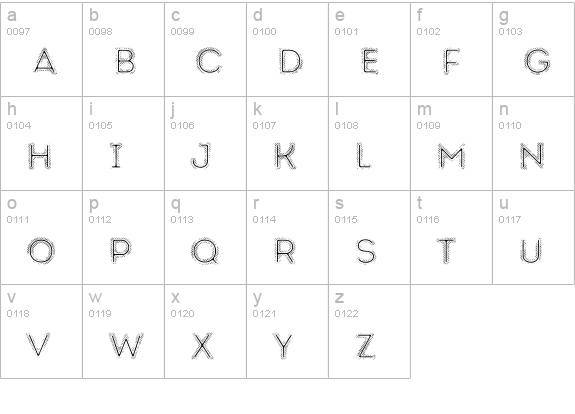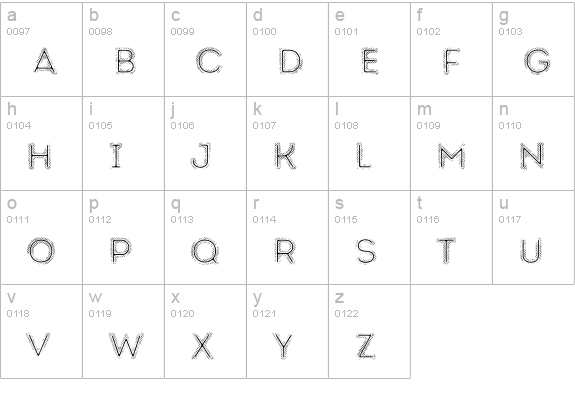
Intro Rust L Fill 2 Line Font Details
Intro Rust L Fill 2 Line font is a striking display typeface that exudes a sense of boldness and creativity. With its unique design featuring filled letters with two lines, this font is perfect for making a statement in various design projects. Whether you are working on branding, logos, posters, or editorial designs, Intro Rust L Fill 2 Line font will add a touch of modernity and style to your work. The best part is that Intro Rust L Fill 2 Line font is available for free download at FontsMarket.com. This means you can easily access this eye-catching font and incorporate it into your projects without any hassle. Don't miss out on the opportunity to enhance your designs with the distinctive charm of Intro Rust L Fill 2 Line font. Download it now and let your creativity shine!